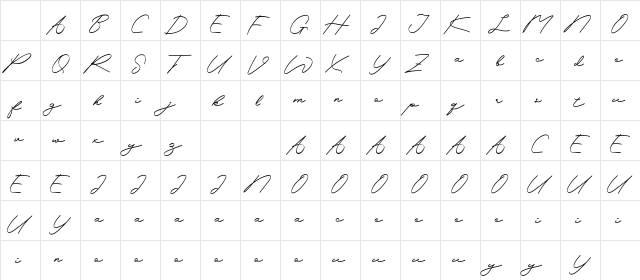
Complete Sweet Final Demo Regular glyph index. Displaying only characters natively supported by Sweet Final Demo Regular font.
Sweet Final Demo is a composed and adaptable typeface that performs quietly and consistently across a wide range of design contexts.